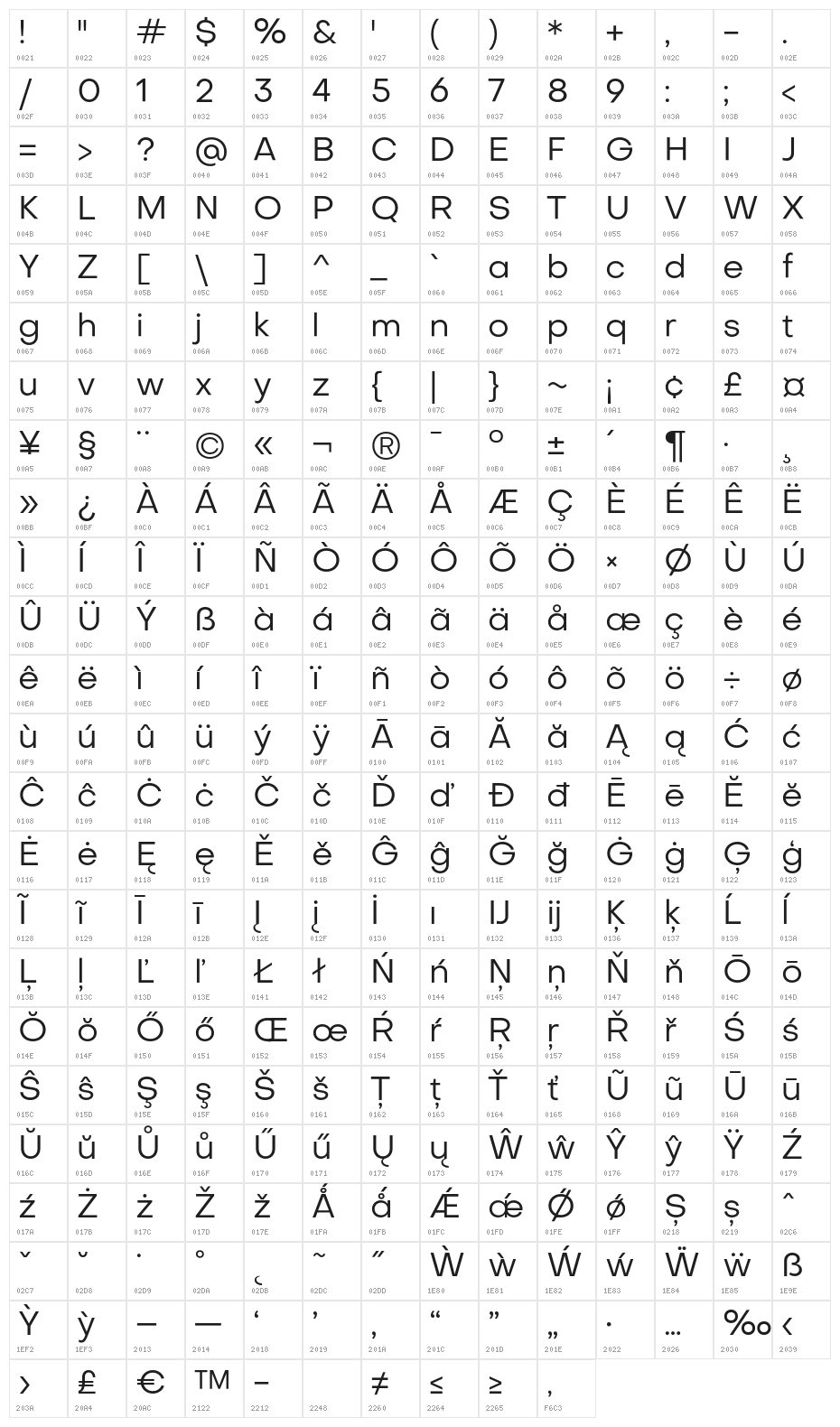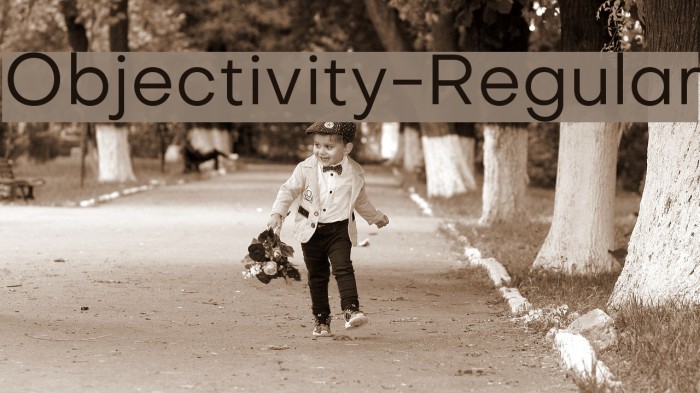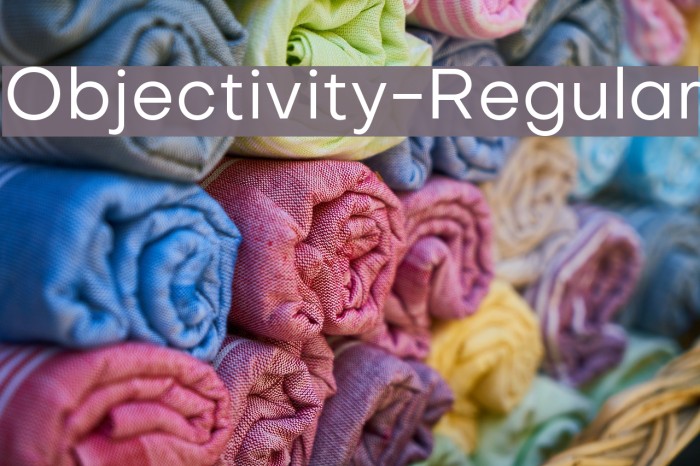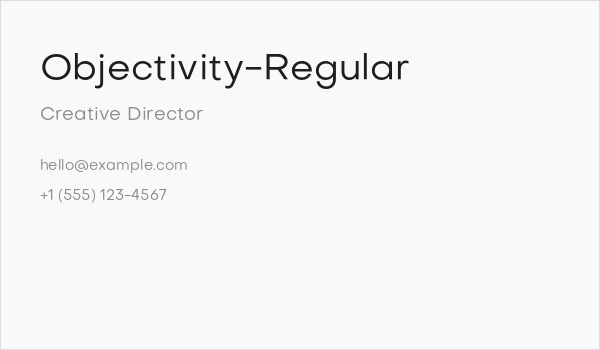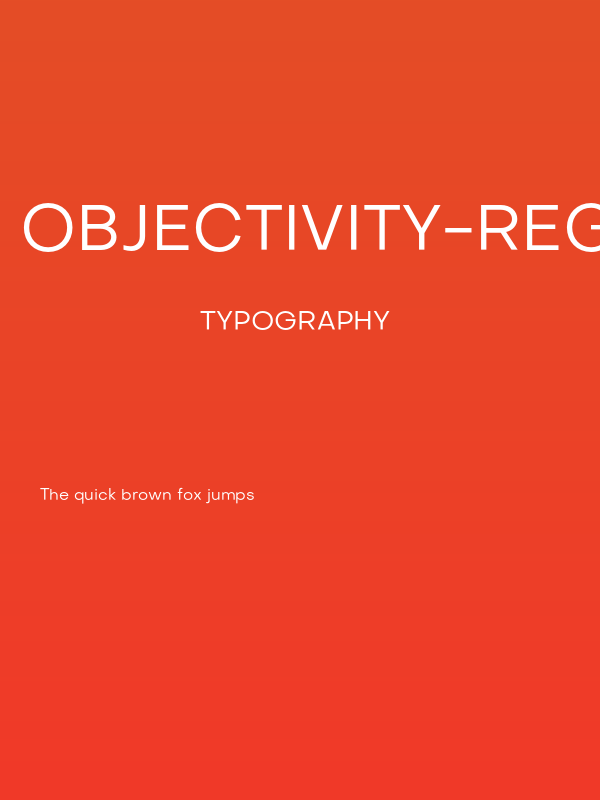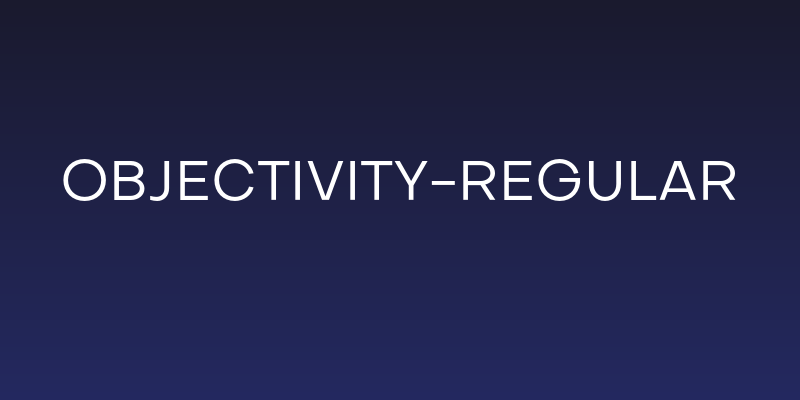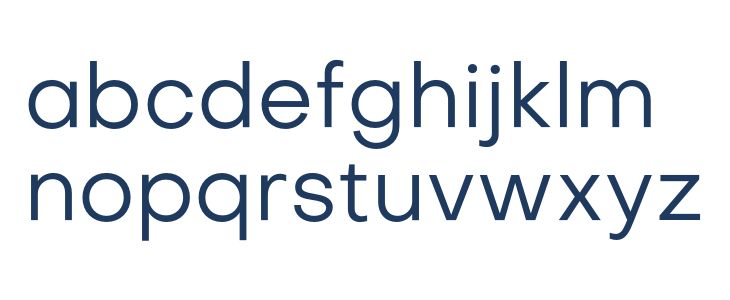
Objectivity-Regular Font
Objectivity-Regular Description
This typeface features a clean and modern sans-serif design, characterized by its geometric shapes and uniform stroke widths. The letters are well-balanced, with a focus on readability and simplicity. The uppercase letters are bold and assertive, while the lowercase letters maintain a friendly and approachable appearance. The numerals are clear and distinct, making them ideal for both digital and print applications. Special characters are included, adding versatility to the font's use. Overall, this font exudes a sense of professionalism and clarity, making it suitable for a wide range of design projects.